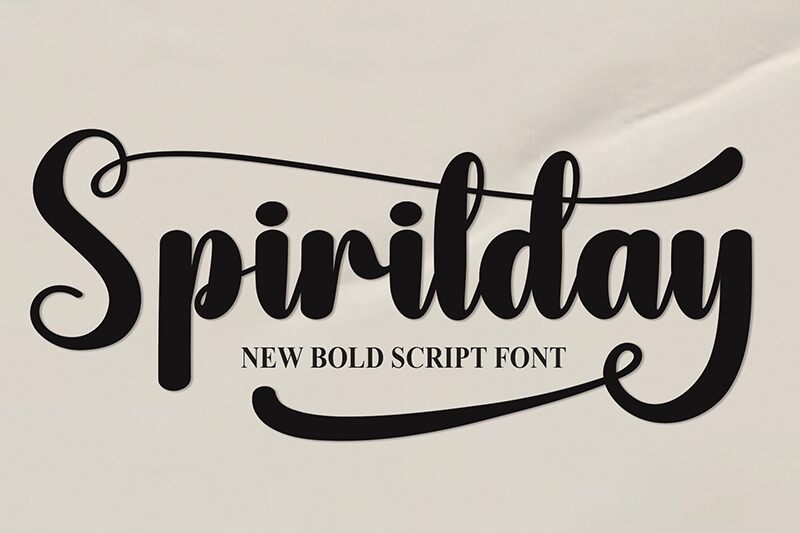
Spiritday
Spiritday font by Scratchones captures the elegance of a flowing modern script with decorative elements and expressive character. This free brush font embodies authenticity and style, displaying unique letter structures that render every design interesting and fascinating. Use it for wonderful creations by taking full advantage of its irregular baseline, bouncy effect, and charming calligraphic forms.
Scrutinize with Spiritday logos for brands, business card designs, package prints/labels, book covers/titles, T-shirt designs, product advertising or branding materials. You can incorporate downloadable TypeFace into posters/flyers in addition to restaurant/bar menu designs.